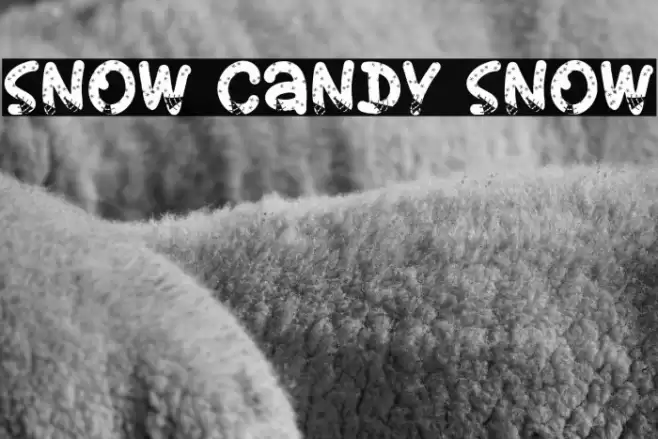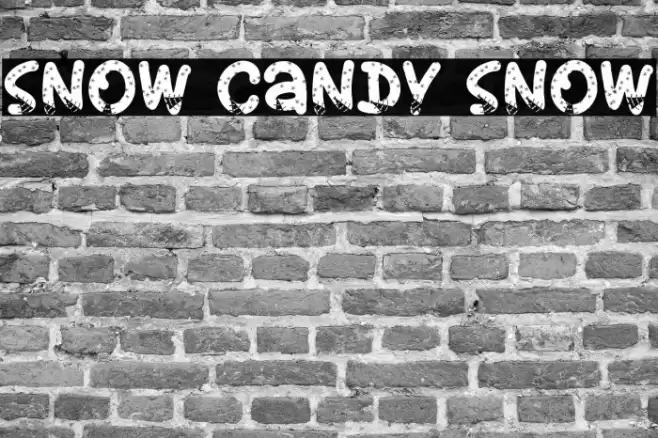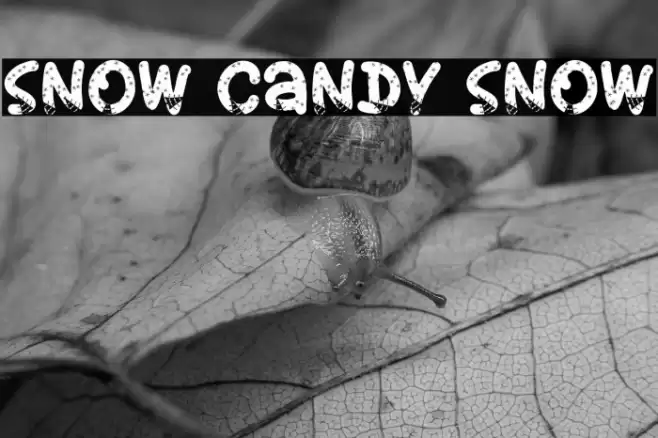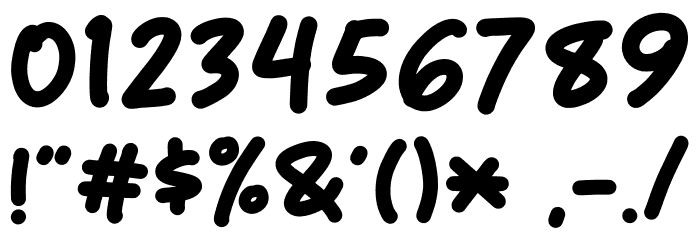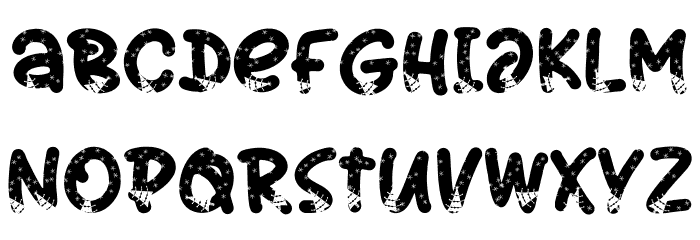
Snow Candy Snow Font
Snow Candy Snow Description
This playful and bold font features a distressed, textured appearance that gives it a unique and eye-catching look. The characters are rounded and thick, with a hand-drawn feel that adds a touch of whimsy. The texture resembles a snowy or frosted effect, making it ideal for winter-themed designs or projects that require a fun and informal style. The uppercase and lowercase letters maintain consistent styling, while the numerals and special characters complement the overall aesthetic. This font's distinctive style makes it stand out, perfect for creative and artistic applications.
A bold, textured font with a playful, hand-drawn style and a snowy effect from Regular fonts.
- Proposed Projects: Ideal for holiday cards, winter-themed posters, playful branding, and children's book covers.